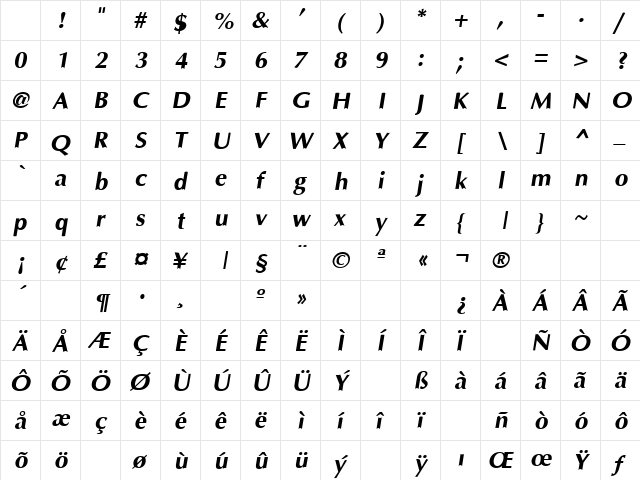
Complete Optimal Bold-Oblique glyph index. Displaying only characters natively supported by Optimal Bold-Oblique font.
Optimal is a composed and adaptable typeface that performs quietly and consistently across a wide range of design contexts. The slanted form adds forward momentum and visual energy. Its bold stroke weight gives it real presence on the page.